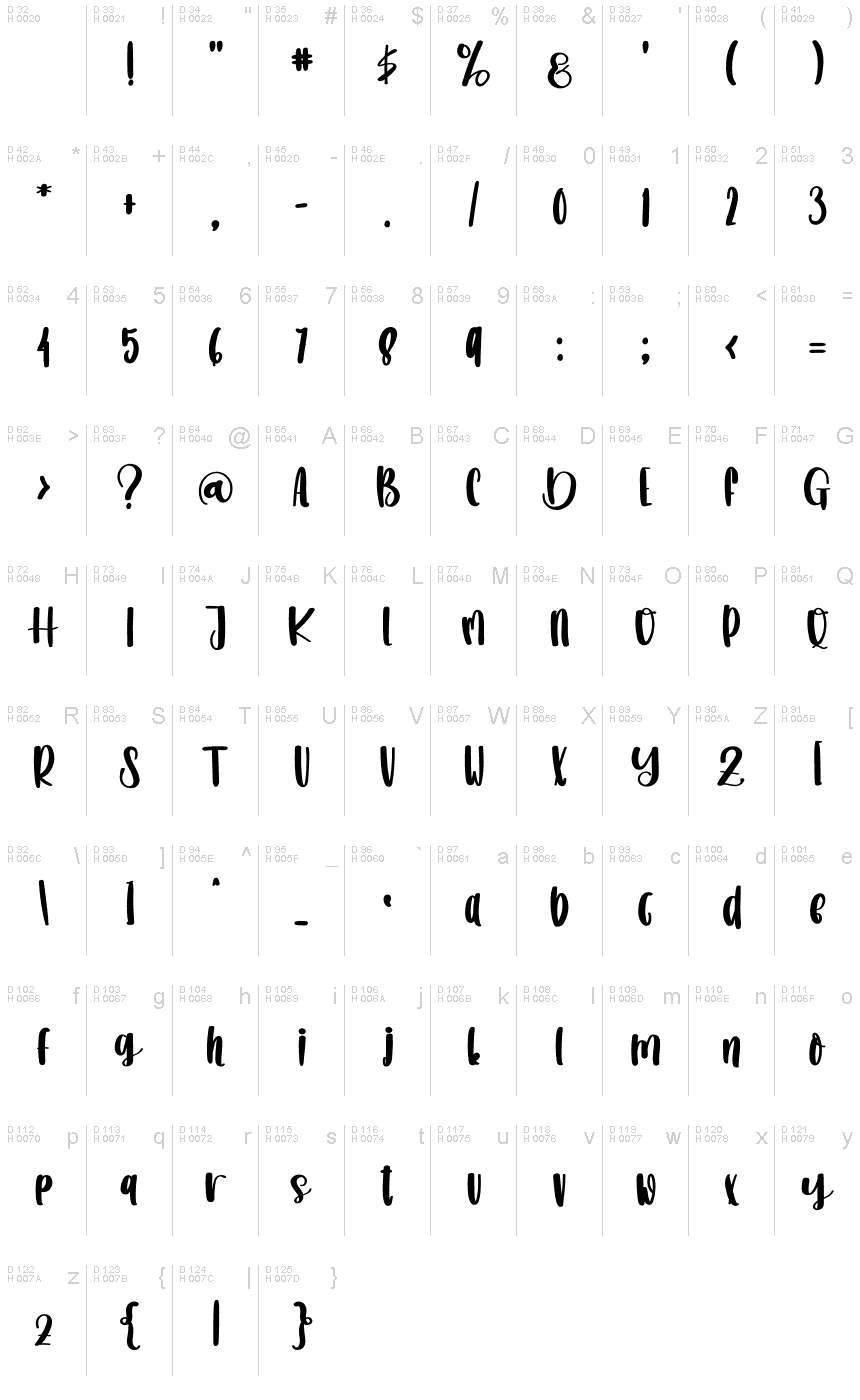
Month Of Christmas
Month of Christmas is a bold, narrow handwritten font designed by Inermedia Studio. It is perfect for creating Christmas-themed projects such as festive greeting cards, holiday decorations, and wintery invitations.